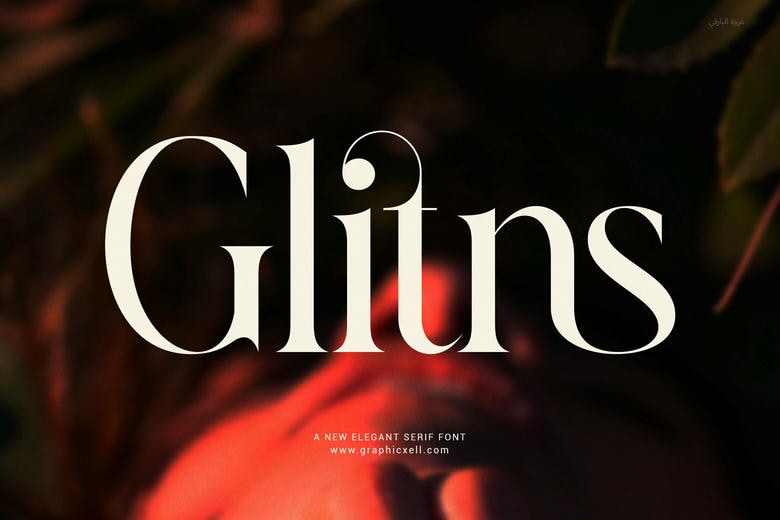
Glitns Font
Glitns is a classy and modern typeface, which is aimed at adding luxury and readability to any design task. This serif font has delicate lines and well-balanced proportions, which makes it a perfect font with elegance and functionality in which high-end branding, editorial layouts, product package design, and upscale web design are a part.
Regardless of whether you are creating a logo of a small boutique or a sleek magazine layout, Glitns will give your work a professional feel that will fit in the current design trends. It has clean, proportional letterforms and has a number of stylish ligatures that bring out beauty in every word and make your text gorgeous and readable.
Glitns Serif Font